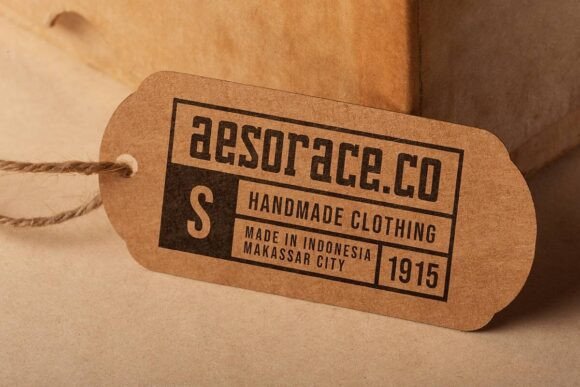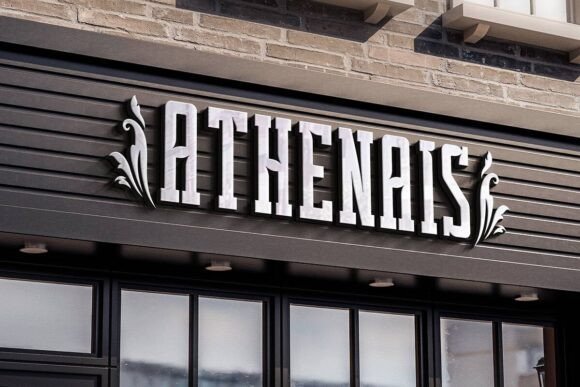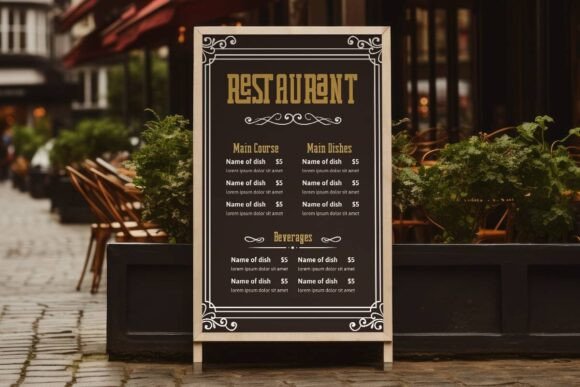
Introduction to Patema Font
Have you ever been stuck on a creative project, pouring over design options, searching for that perfect font to elevate your work to the next level? It’s that moment when the right typeface can make all the difference – and that’s where Patema Font comes in.
As a designer, you understand the importance of choosing a font that not only complements your project but also communicates your message effectively. Patema Font is a game-changer, offering a unique blend of slab serif and condensed letterforms that will give your designs a refined, timeless aesthetic. Whether you’re working on a high-quality brochure, a creative campaign, or a design project that requires a bold yet elegant look, Patema Font is the perfect resource for you.
Key Features of Patema Font
- High-quality design: Patema Font is crafted with attention to detail, ensuring a polished and professional appearance in any design project.
- Large character set: Patema Font includes a comprehensive character set, including uppercase and lowercase letters, numbers, and punctuation marks.
Honest Review: Patema Font
As a designer, I’m always on the lookout for high-quality fonts to elevate my creative projects. I recently came across the Patema Font, and I’m excited to share my honest review with you.
- ✨ The font’s unique, modern design makes it perfect for contemporary creative projects.
One of the standout features of the Patema Font is its versatility. It’s suitable for a wide range of design applications, from branding to digital media. The font’s high quality is evident in its crisp, clean lines and well-defined characters.
- ⚠️ The font’s limited character set might be a concern for designers who require a more extensive character set.
- ⚠️ The font’s readability might be affected in very small sizes, so it’s essential to test it at various scales.
Overall, the Patema Font is a solid addition to any designer’s library. While it may have some limitations, its unique design and high-quality aesthetic make it a valuable resource for creative projects.
Patema Font
The Patema Font is a high-quality, free design resource ideal for creative projects. Its transparent background makes it a versatile choice for various applications.
Tips for Getting the Most Out of Patema Font
Use the Patema Font for creative projects, such as graphics, logos, and branding materials.
Experiment with different font sizes and styles to add visual interest to your design.
Combine the Patema Font with other design elements, such as images and shapes, to create a unique look.
The Patema Font is suitable for a wide range of creative projects, including:
Graphics and logos
Branding materials
Business cards and letterheads
Posters and flyers